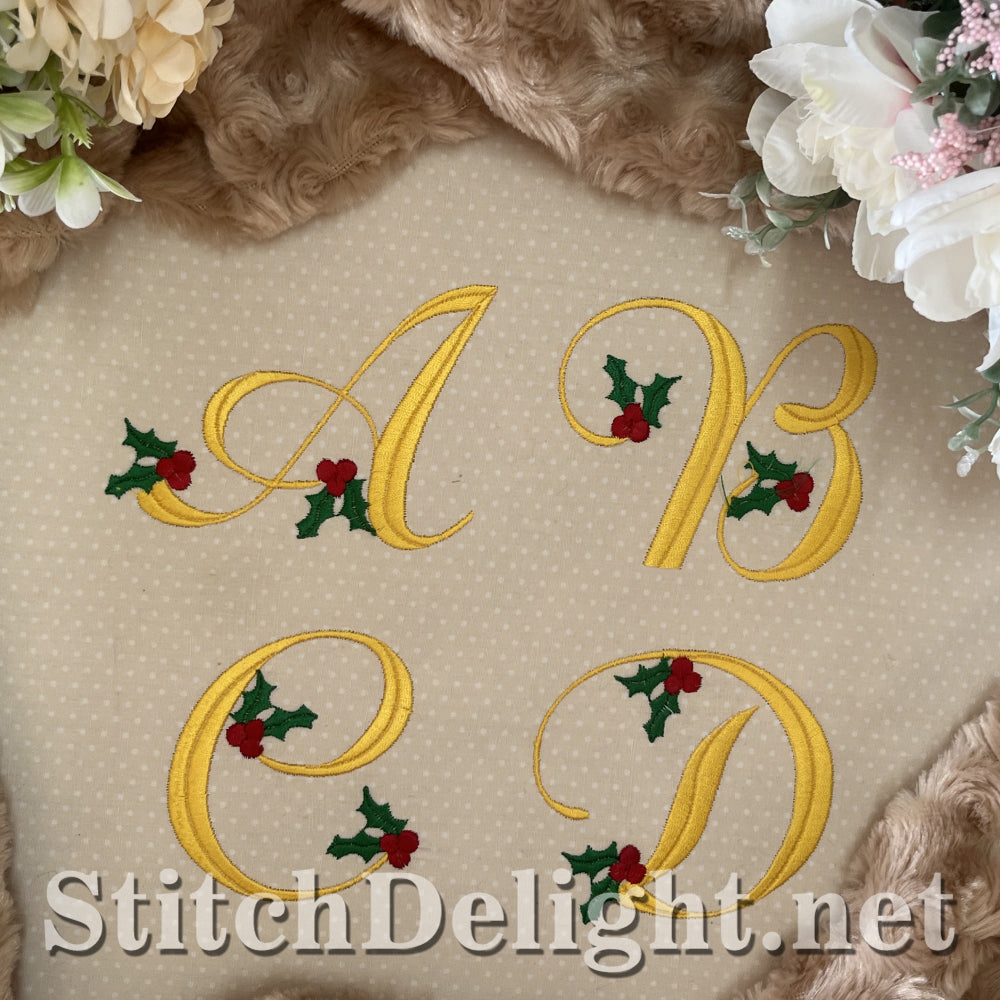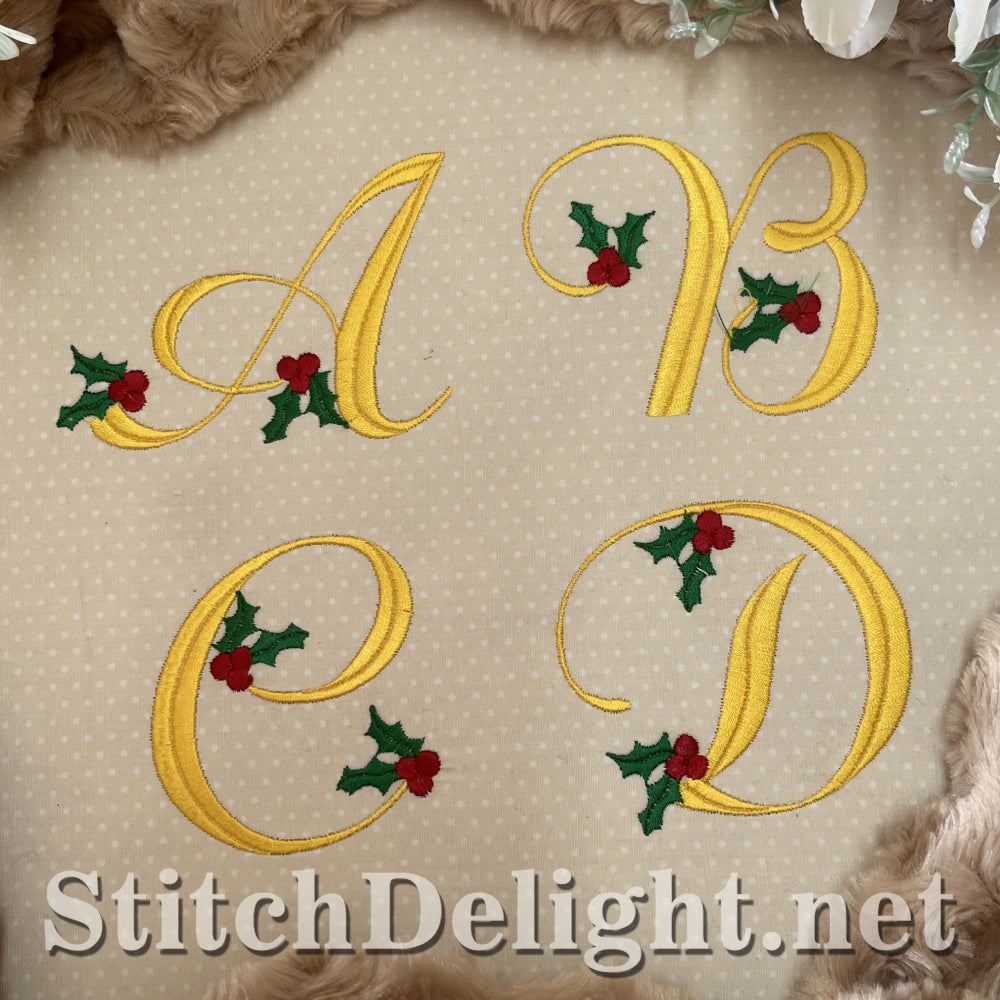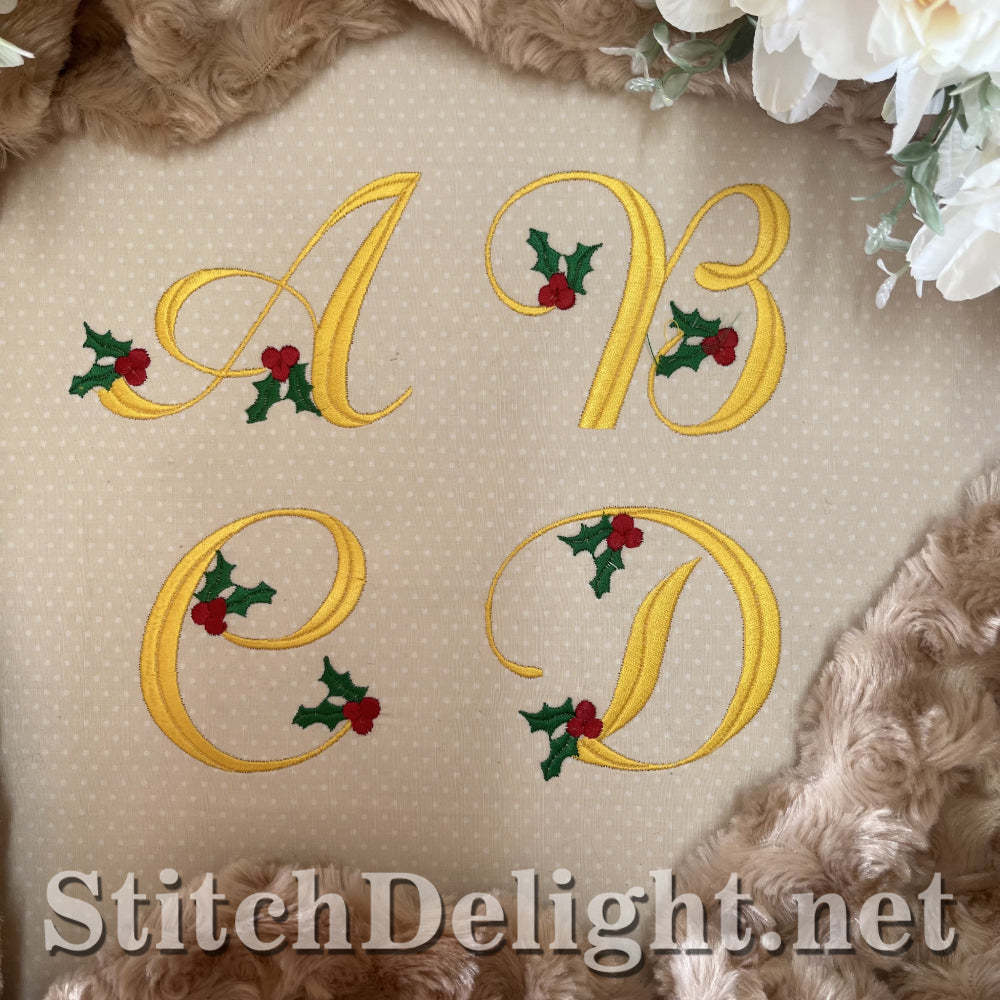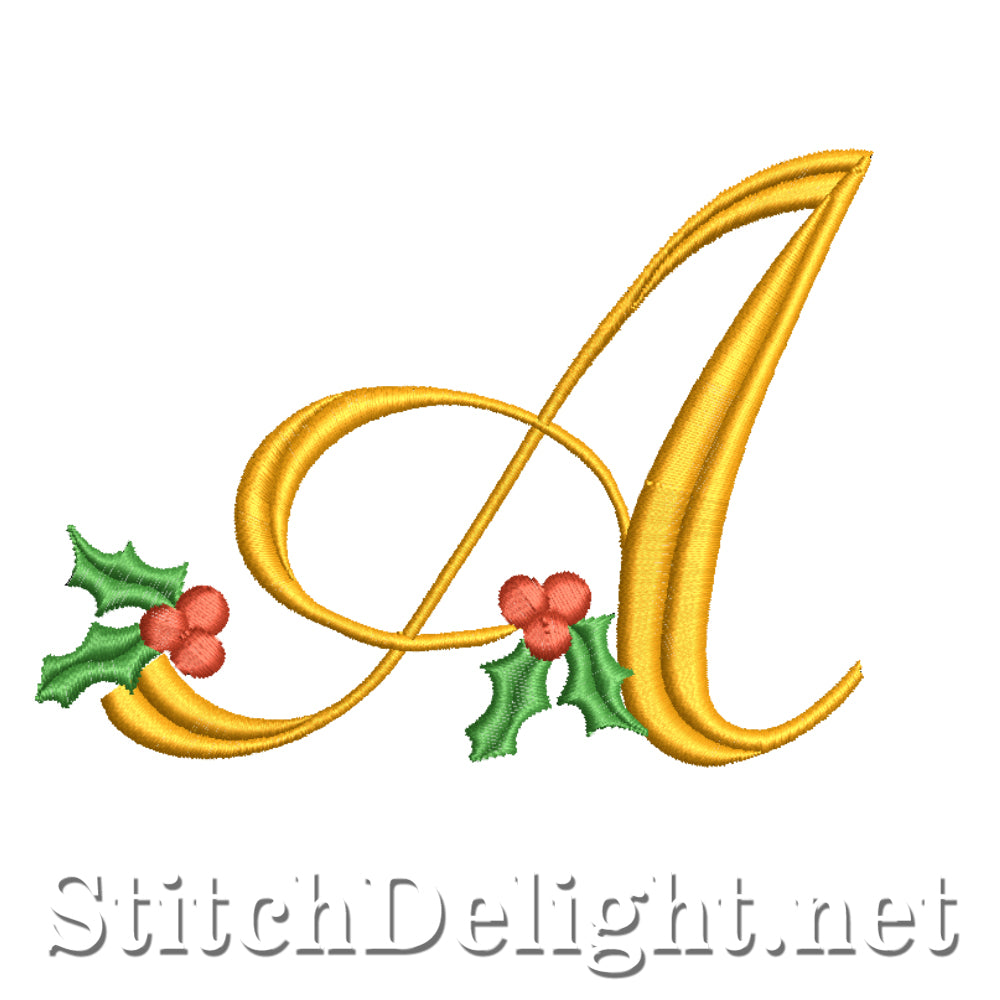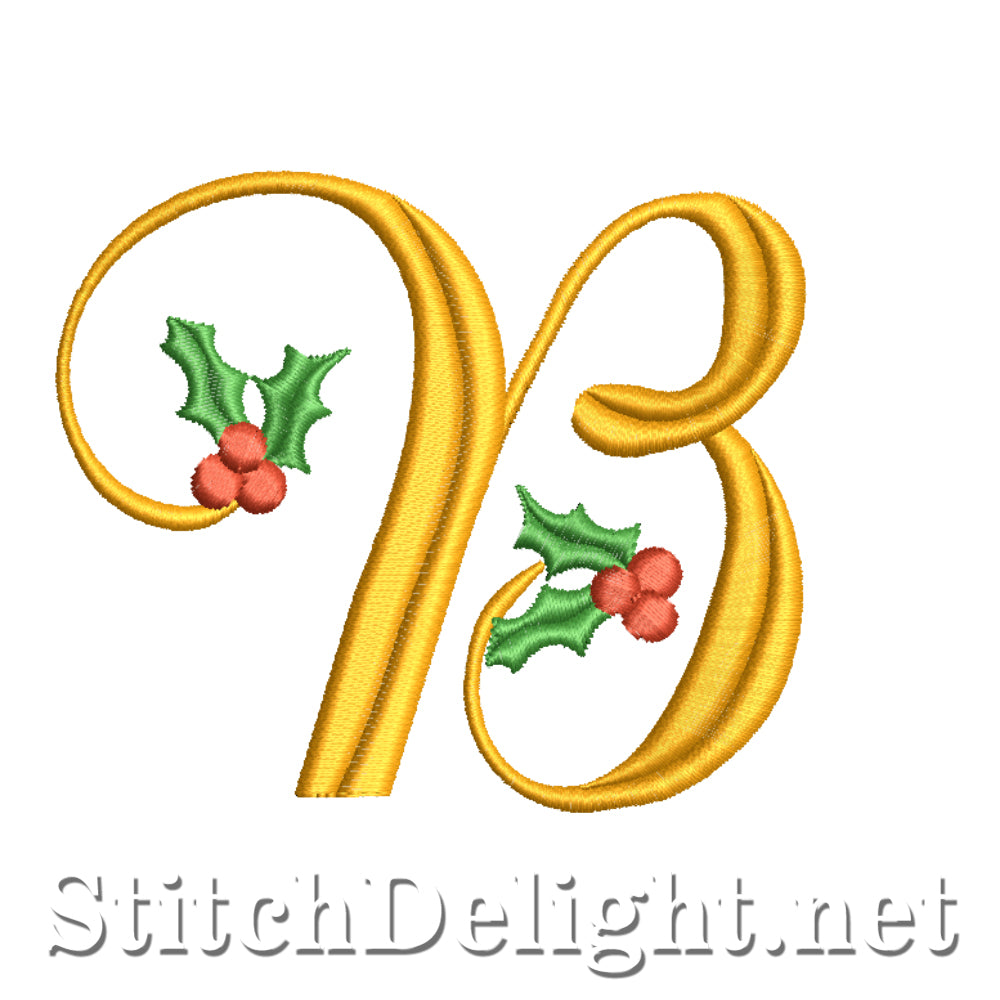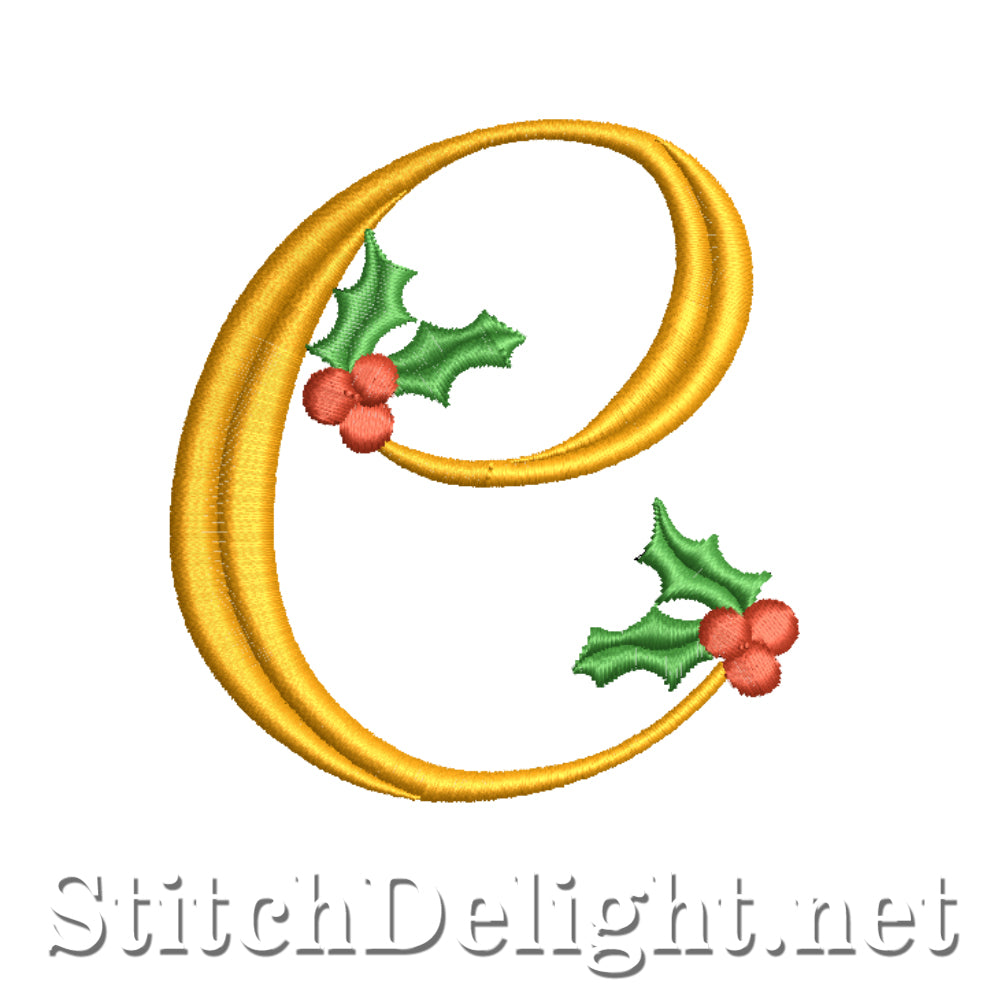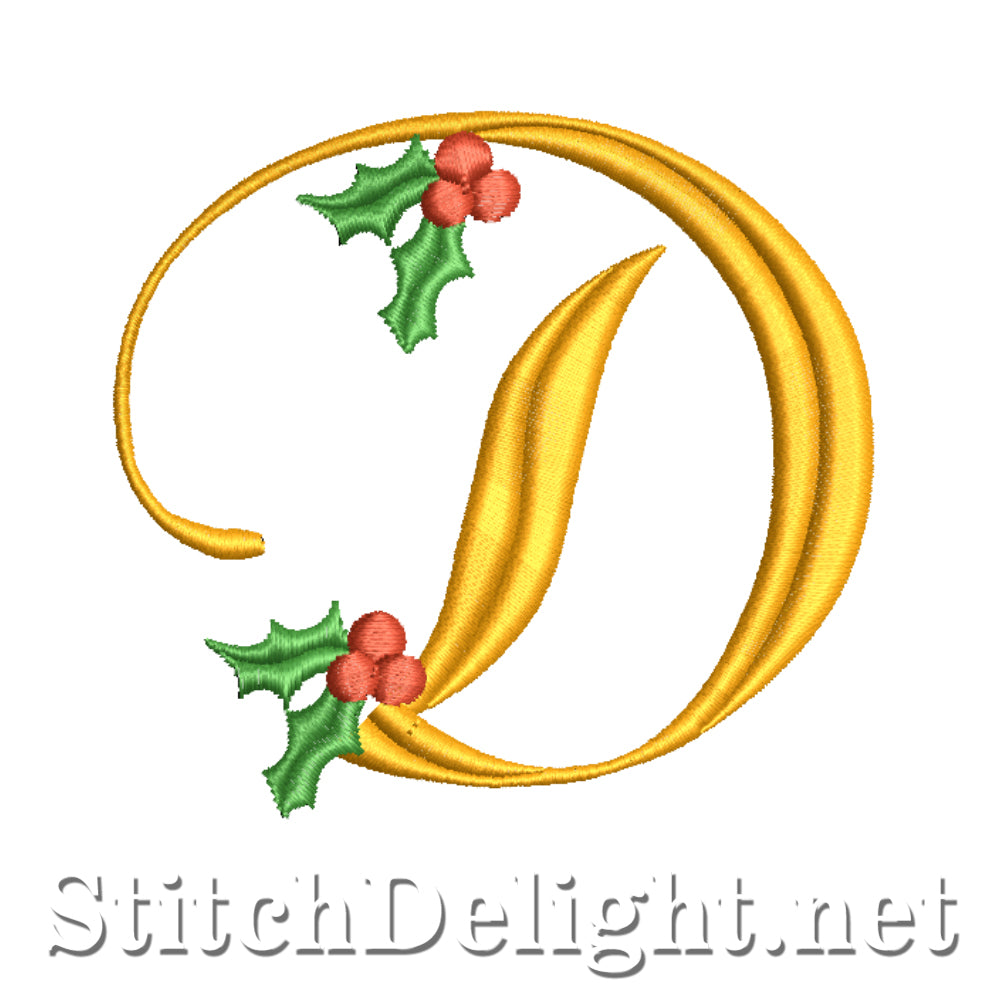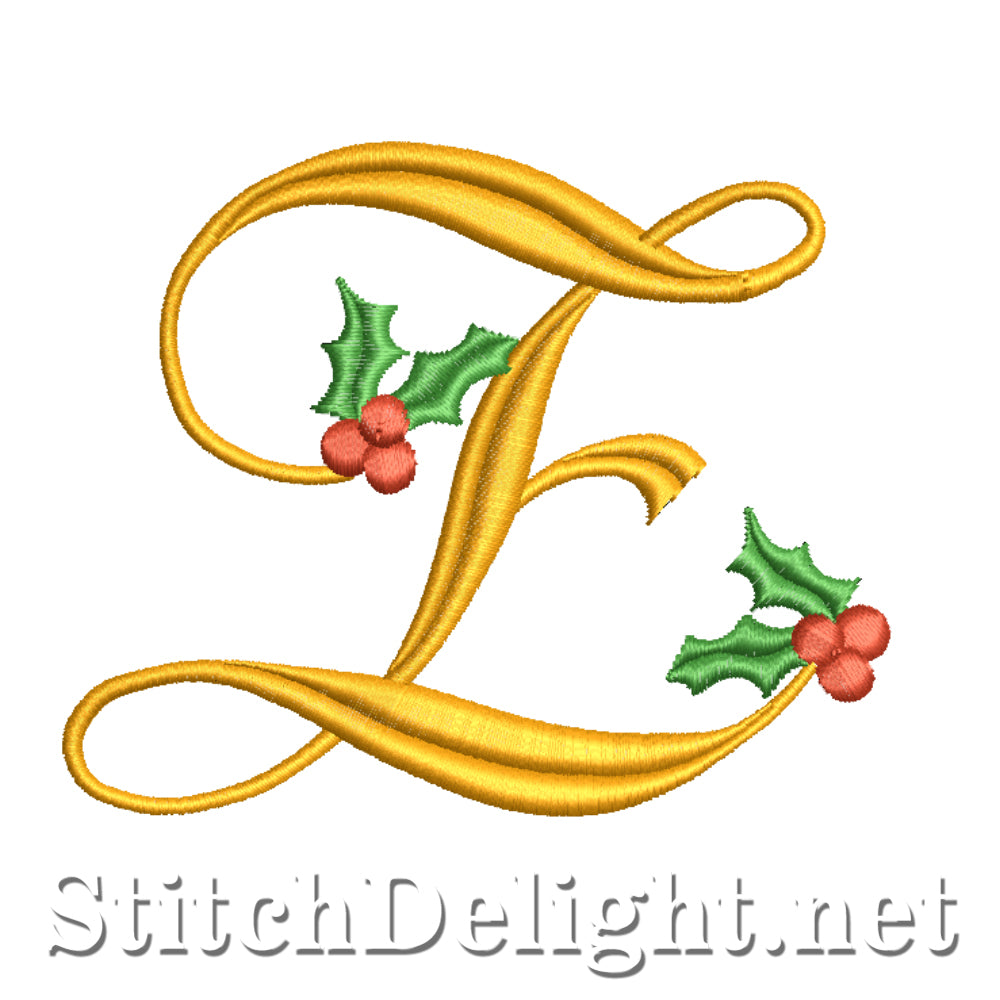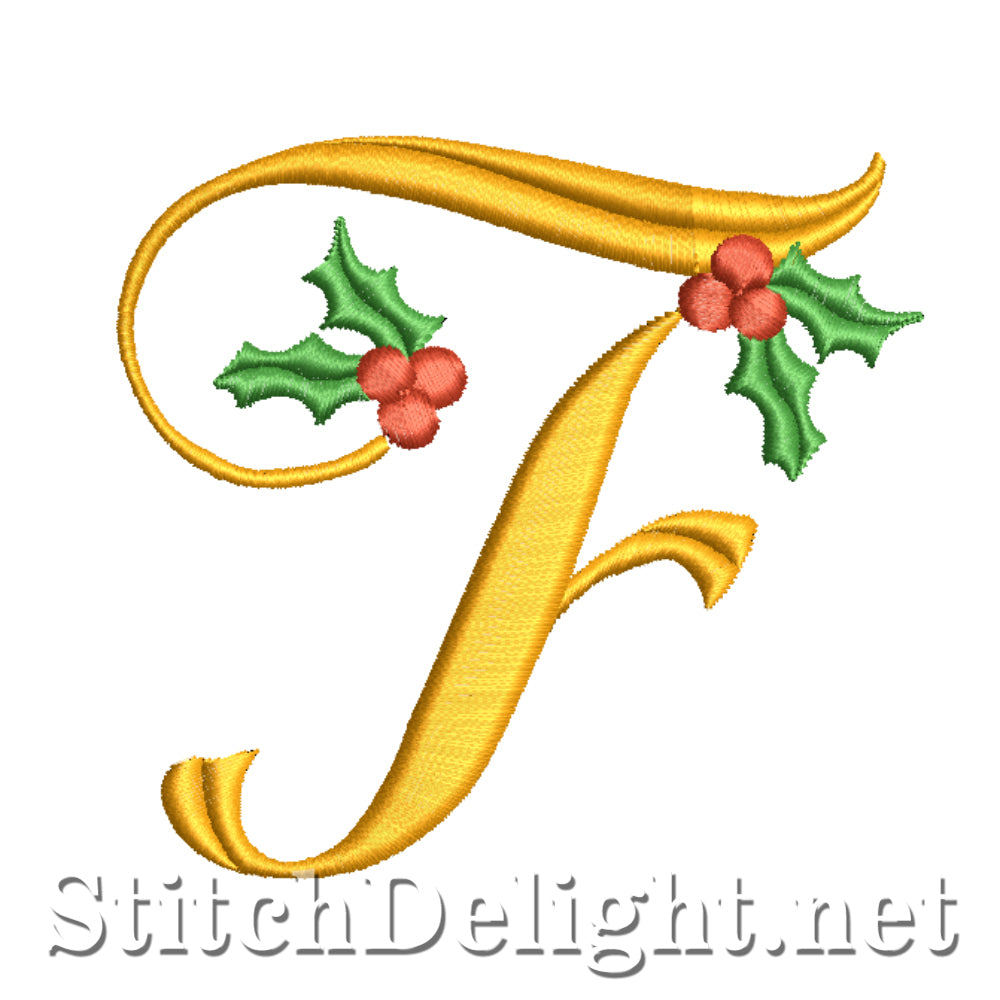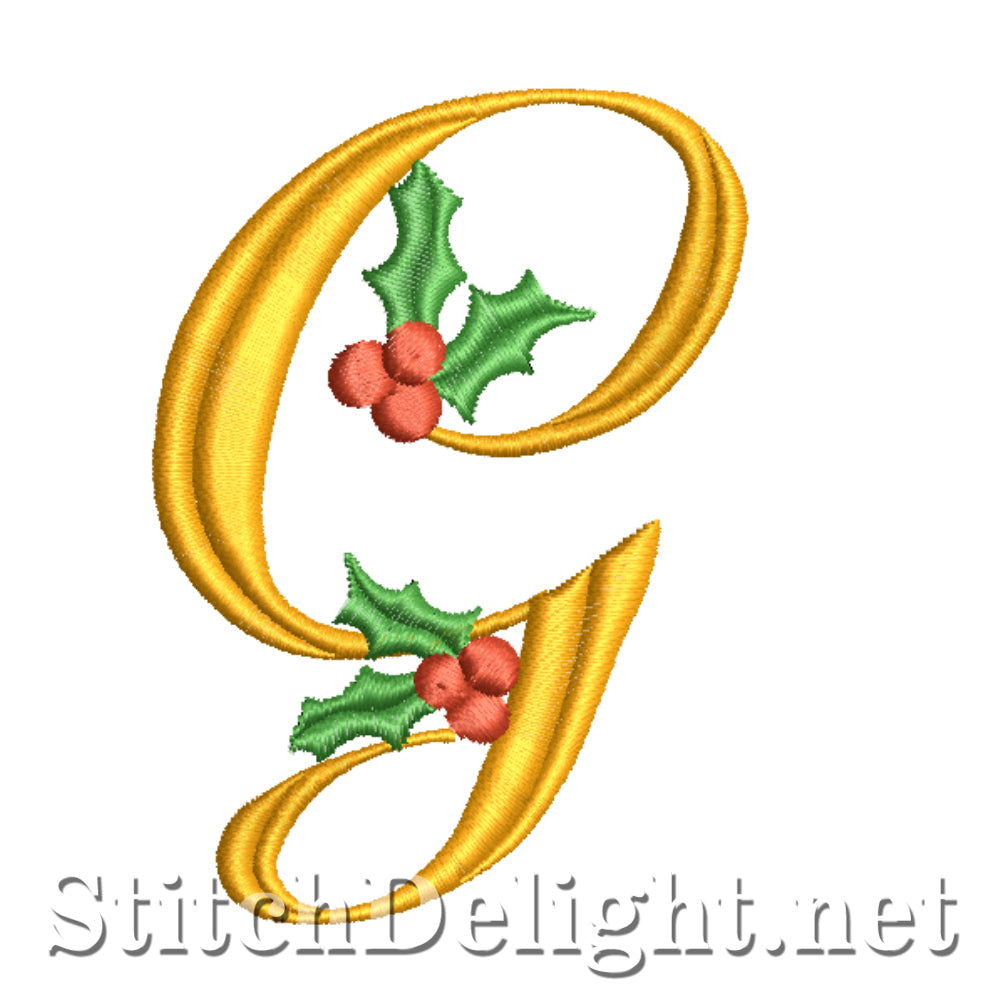
With this elegant Mistletoe font, you can easily add the Christmas joy to any of your projects.
Let your imagination run free as you use this font in your designs. From beautiful names to eye-catching logos and everything in between.